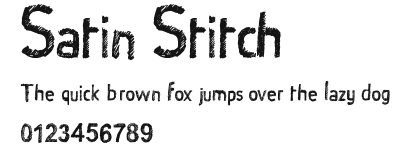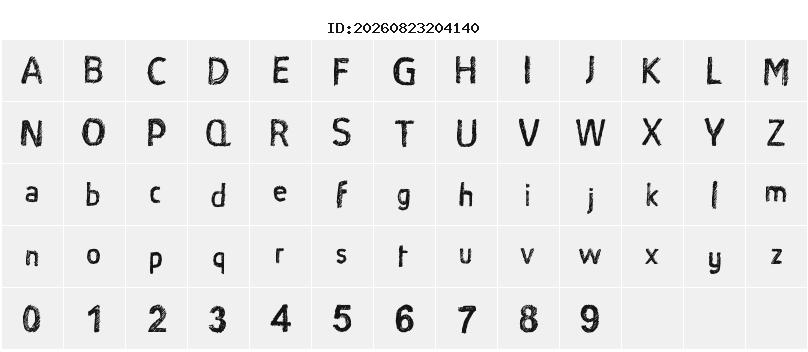
About Satin Stitch.ttf
Satin Stitch.ttf is a modern, elegant sans-serif font designed for ultimate readability and visual harmony. Perfect for branding, headlines, web design, and print materials.